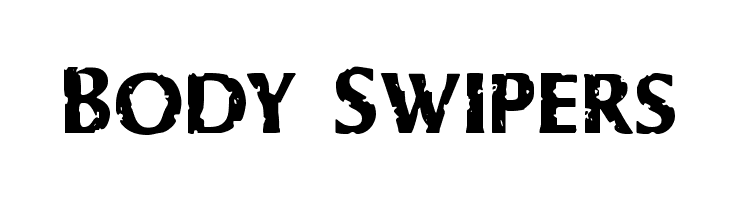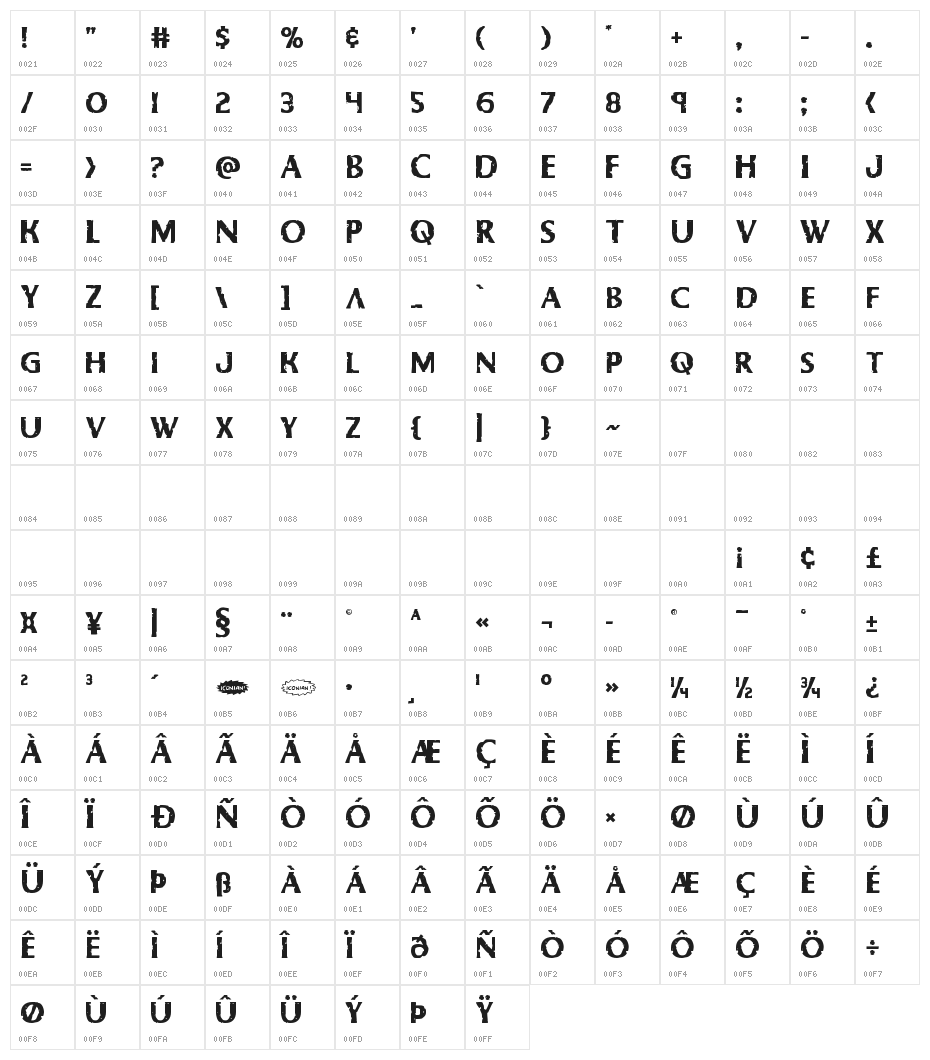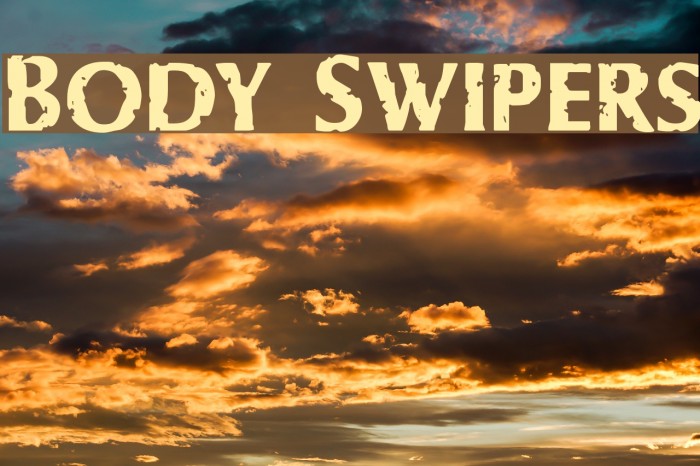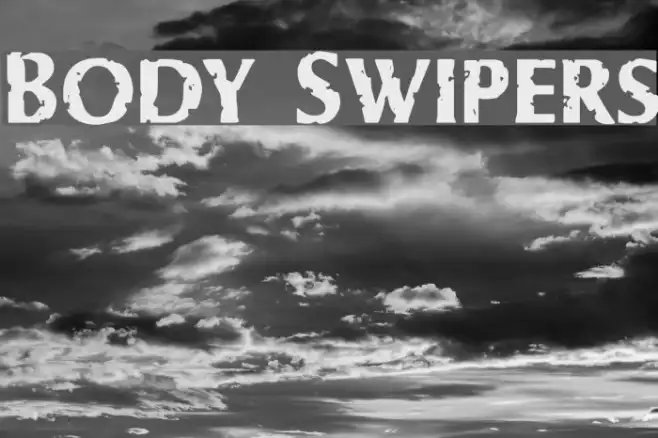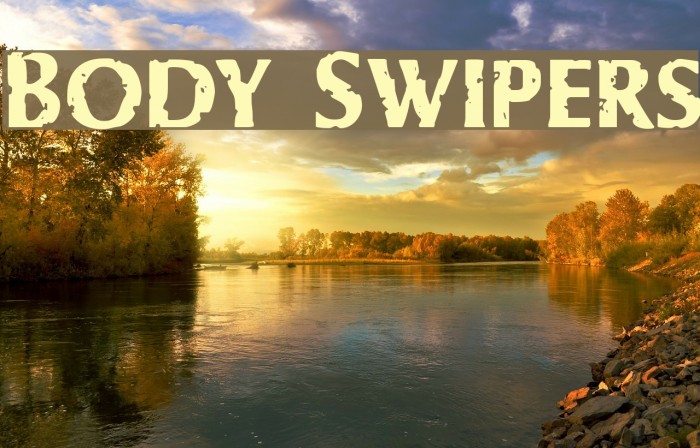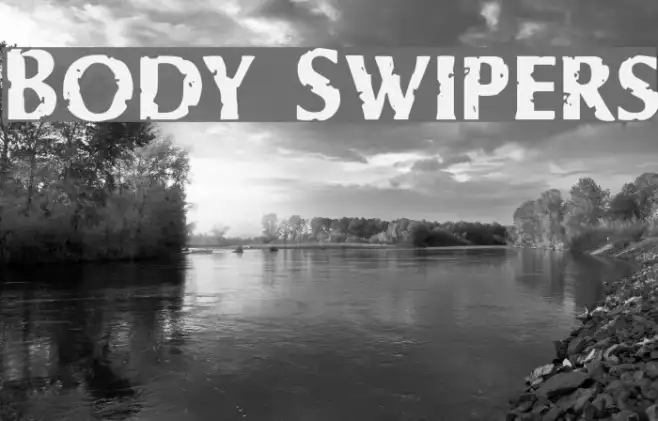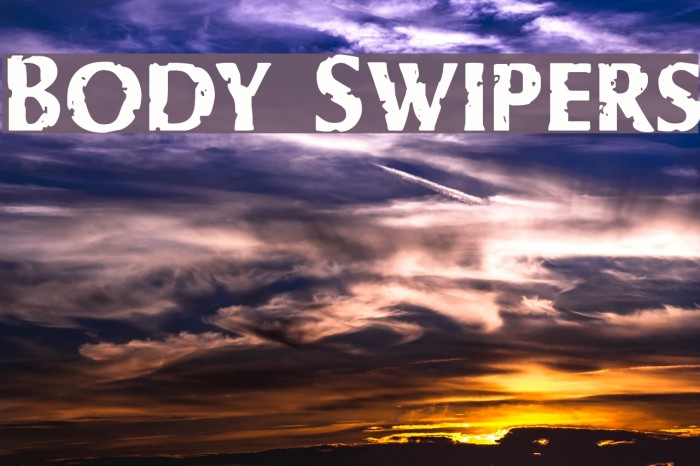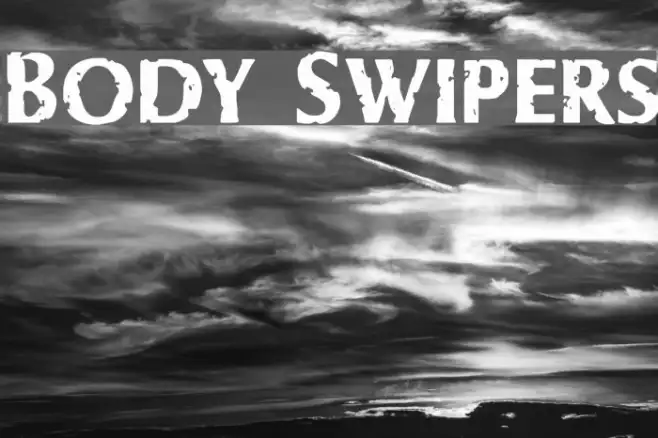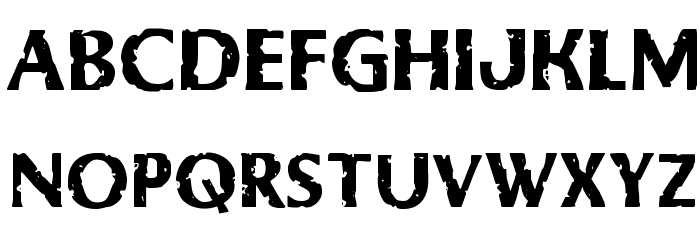
Body Swipers Font
Body Swipers Description
This font features a bold and distressed style, characterized by its rough, textured edges and uneven surface, giving it a rugged and worn appearance. The uppercase and lowercase letters maintain a consistent height, while the numbers and special characters follow the same distressed aesthetic. This font's unique style makes it stand out, with a strong visual impact that suggests a sense of vintage or grunge. The characters are evenly spaced, ensuring readability despite the distressed design. Its bold nature and distinctive look make it suitable for projects that require a strong, eye-catching typeface.
| Proposed Projects | Ideal for posters, album covers, branding, and any design requiring a vintage or grunge aesthetic. |